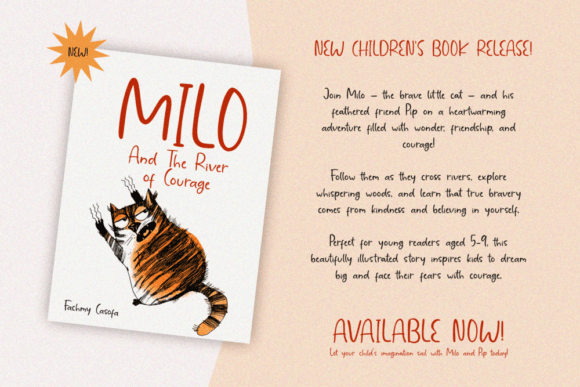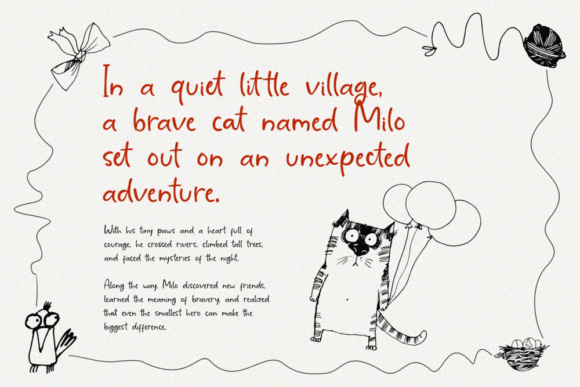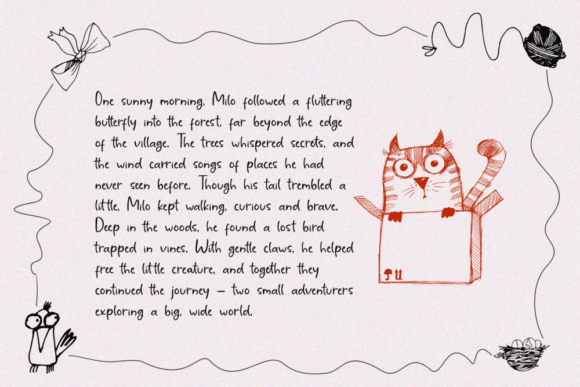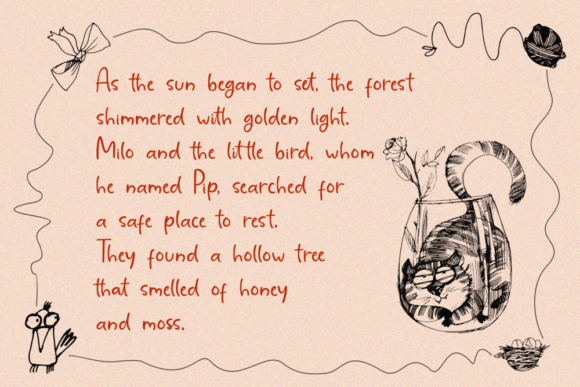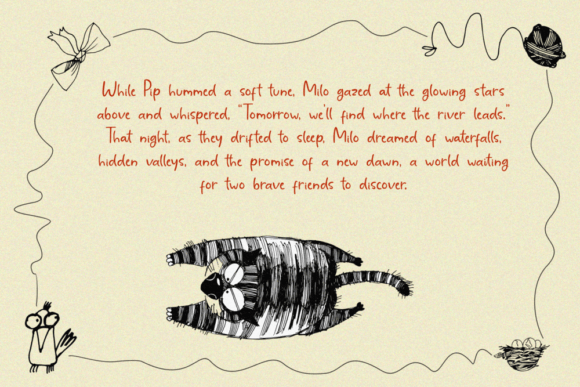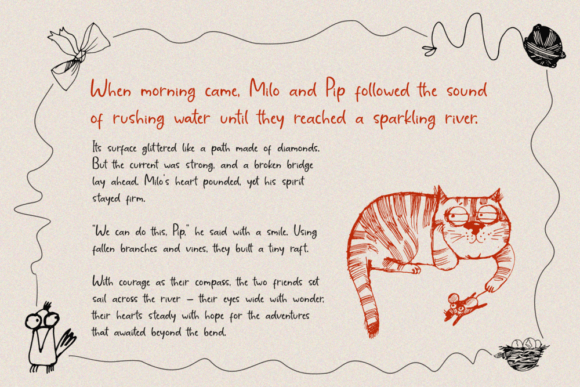
Introduction to Childnotes Handwriting Font
Immerse in the magical charm of Childnotes Handwriting, a delightful font delicately crafted to mirror the unbridled joy and essence of childhood creativity.
Every swerve and stroke echoes with the vibrant warmth often seen in childrenโs carefree scrawl, making it an enchanting choice for fantastical themes, illustrated tales, or picture storybooks Childnotes Handwriting fosters an atmosphere of imagination, crafting each letter as a spellbinding fragment of an untold story.
Key Features of Childnotes Handwriting Font
Why Choose Childnotes Handwriting Font?
Childnotes Handwriting Font offers exceptional quality and versatility, making it a valuable addition to your design toolkit. Whether you’re creating for personal projects or commercial use, Childnotes Handwriting Font delivers professional results.